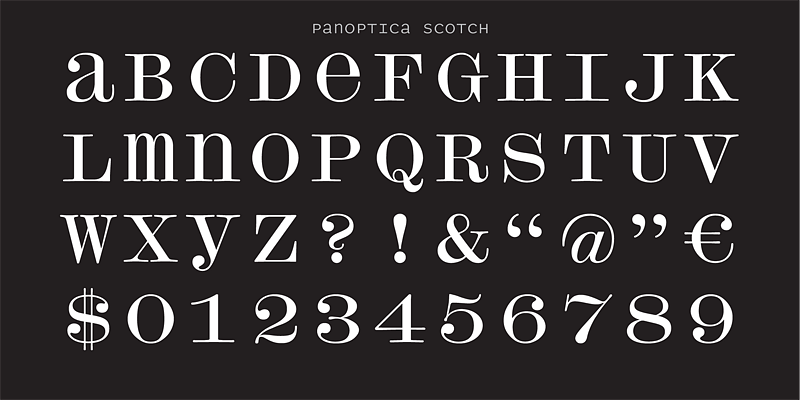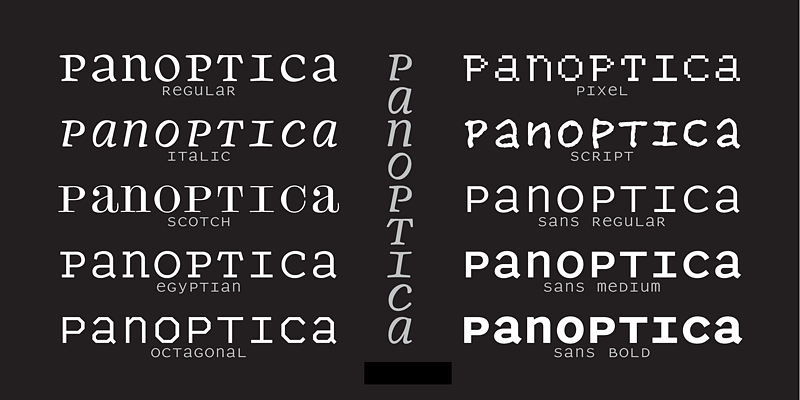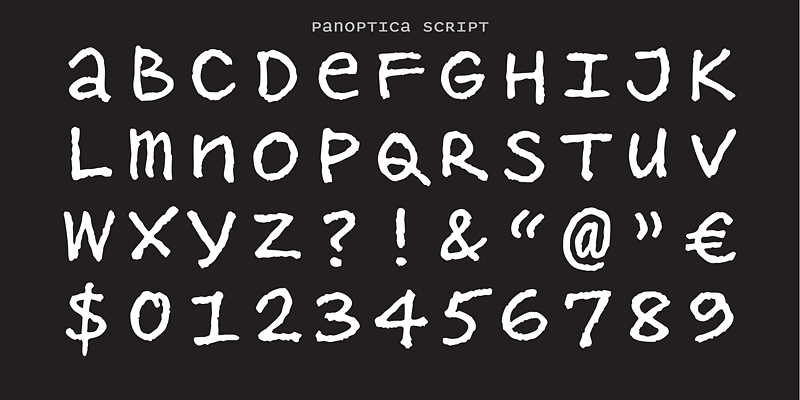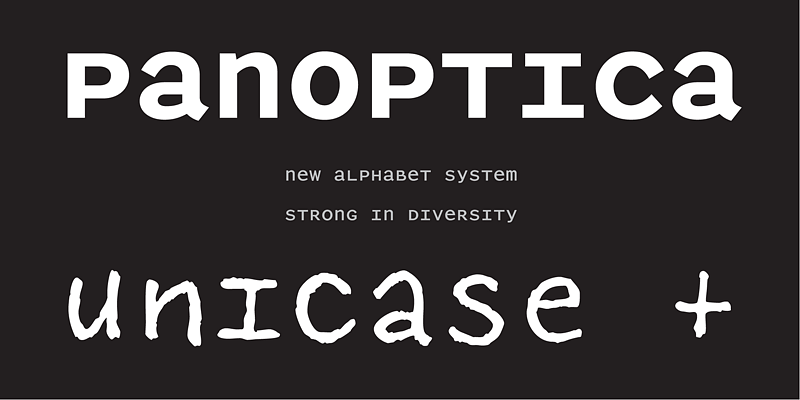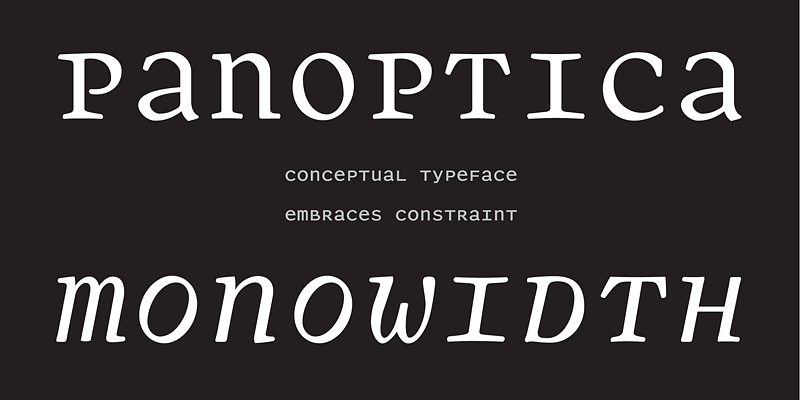
Monowidth, unicase: the alphabet imprisoned in cell blocks. With current concern over surveillance and identity as backdrop, Shinn suggests that there are no exemptions, the universality of this proposal indicated by the diversity of genres to which the Panoptic effect has been applied.